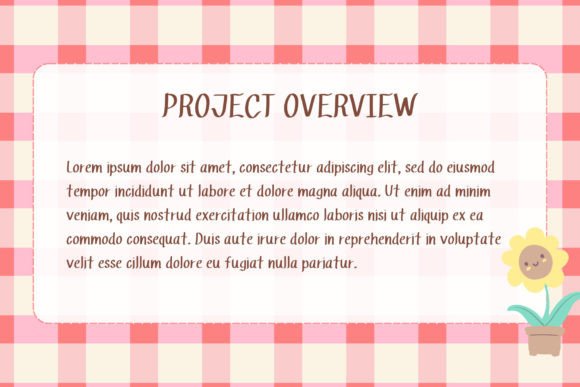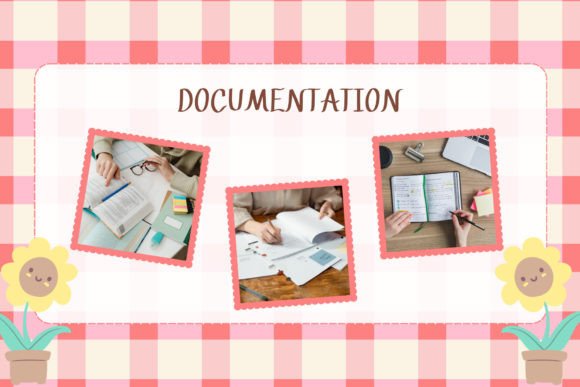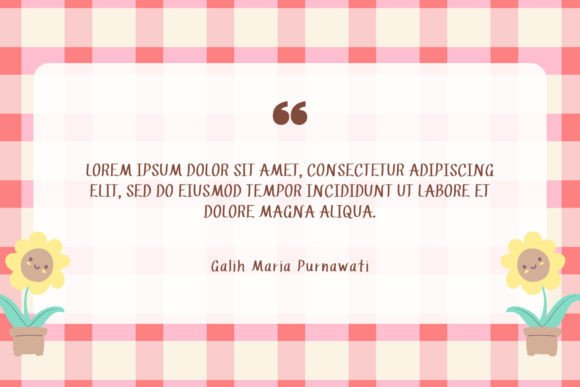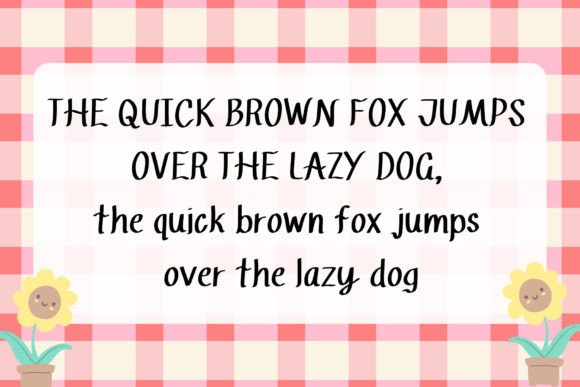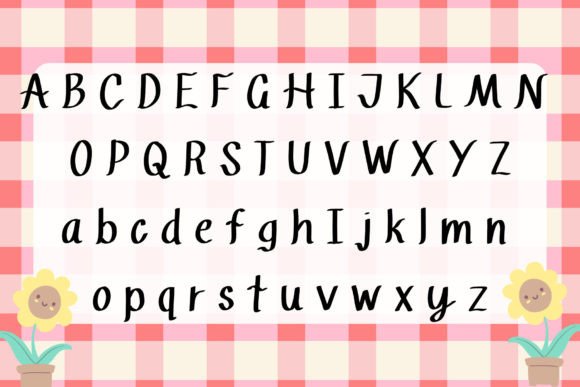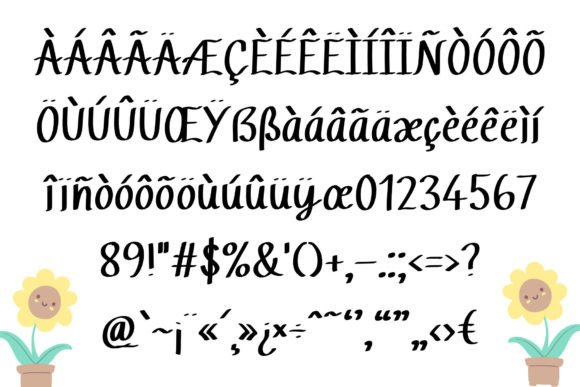
Introduction to Rosabel Font
Have you ever found yourself doodling in the margins of a notebook, letting your pen wander across the page in a joyful dance of lines and curves? For many designers, those spontaneous moments of creativity are what inspire some of their most innovative work. For those of us who love to create, the right design resource can be the key to unlocking our full potential. And when it comes to adding a touch of whimsy to your next project, the Rosabel Font is sure to be a game-changer.
With its playful, handwritten style and transparent background, the Rosabel Font is the perfect addition to any creative project. Whether you’re designing an invitation, a logo, or simply a fun card for a friend, this high-quality font is sure to bring a smile to the face of anyone who sees it. And the best part? It’s available as a free download, making it an invaluable resource for designers of all levels.
Rosabel Font Key Features
- High-quality design resource for creative projects: Rosabel Font is a premium font designed for professionals and individuals looking for a unique touch in their designs.
- Transparent background: The font features a transparent background, allowing designers to easily place it over any image or background without any visual distractions.
- Perfect for creative projects: This font is ideal for designers working on creative projects such as logos, branding materials, and marketing materials, where a unique and eye-catching font is required.
- Unique characteristics: Rosabel Font features a unique blend of modern and vintage elements, making it an excellent choice for designers looking to add a touch of elegance and sophistication to their designs.
Honest Review: Rosabel Font
I recently had the chance to try out the Rosabel Font, a popular design resource that’s been making waves in the creative community. Overall, I’m impressed with its high quality and versatility.
What works well is its clean and elegant design, perfect for any creative project that requires a touch of sophistication. The font is available for free download, making it an excellent choice for designers on a budget. The transparent background is also a nice feature, allowing for easy customization and layering.
- ✨ Clean and elegant design
- ✨ Versatile and suitable for various creative projects
- ✨ Transparent background for easy customization
One limitation I noticed is that the font may not be suitable for bold or dramatic headings, as it can appear a bit too subtle. Additionally, the font’s design may not be the best fit for projects that require a lot of bold typography.
Overall, I’m quite impressed with the Rosabel Font. Its high quality and free availability make it a great design resource for any creative project. While it may have some limitations, it’s definitely worth considering for your next design project.
Tips and Use Cases
Some common use cases for the Rosabel Font include: creating logos, designing business cards, and crafting social media graphics. To get the most out of the Rosabel Font, experiment with different font sizes, colors, and styles to create a unique look. You can also pair the Rosabel Font with other design elements to create a cohesive visual identity for your creative project.
Q: Can I customize Rosabel Font for my specific design needs?
Yes, the Rosabel Font is fully customizable, allowing designers to adjust the font’s size, color, and style to suit their specific design requirements. This flexibility makes the Rosabel Font an excellent design resource for designers who want to create unique and high-quality designs for their creative project.